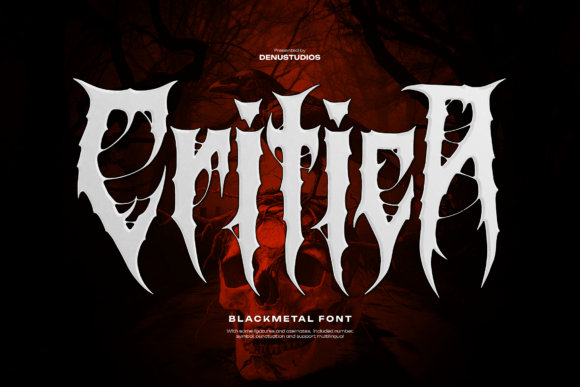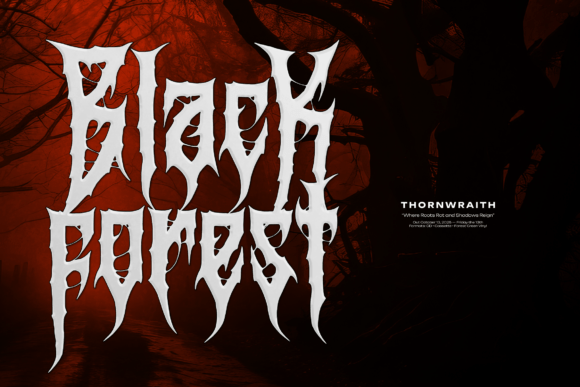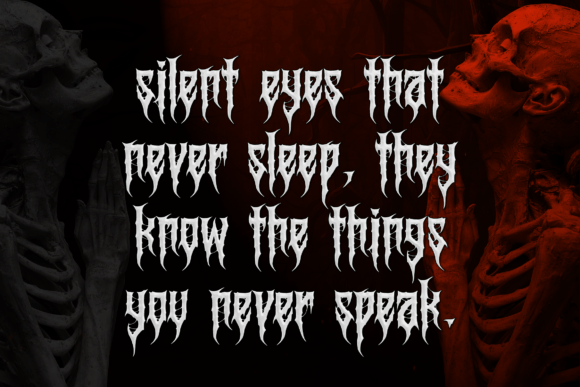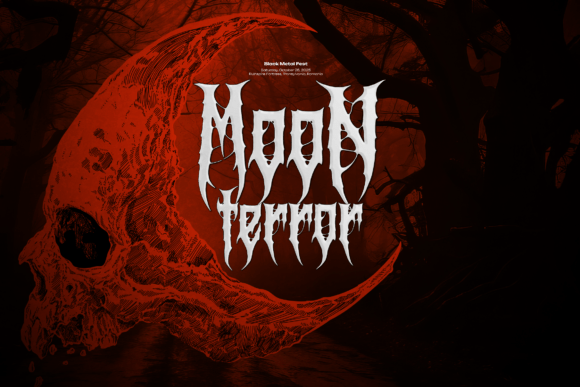
Critica Font: A Menacing Display Font for Dark & Creative Designs
About the Critica Font
Get ready to be inspired by Critica Font, a fresh and dynamic typeface for modern creators. Critica is a menacing black metal display font crafted for album covers, horror themes, and dark merchandise. With sharp, jagged edges and haunting stylistic elements, it screams intensity and underground attitude.
Critica excels in large-scale applications such as posters, album art, and logotypes for brands projecting a rebellious or dark aesthetic. Its aggressive forms are less effective for body copy or UI elements; the sharp serifs would hinder readability in smaller sizes or continuous text.
Pairing Critica with a clean, geometric sans-serif like Futura or a more organic, rounded sans-serif like Gill Sans would create a striking contrast, balancing its intensity. For a more nuanced approach, consider a delicate script font for secondary text elements to emphasize the contrast between elegance and harshness.
Critica’s core personality is undeniably bold and aggressive, conveying power and menace. It’s ideal for projects requiring a strong visual impact and an underground feel, aligning perfectly with brands in the metal, horror, or gothic subcultures.
Critica Font Usage Examples
Critica Font Example